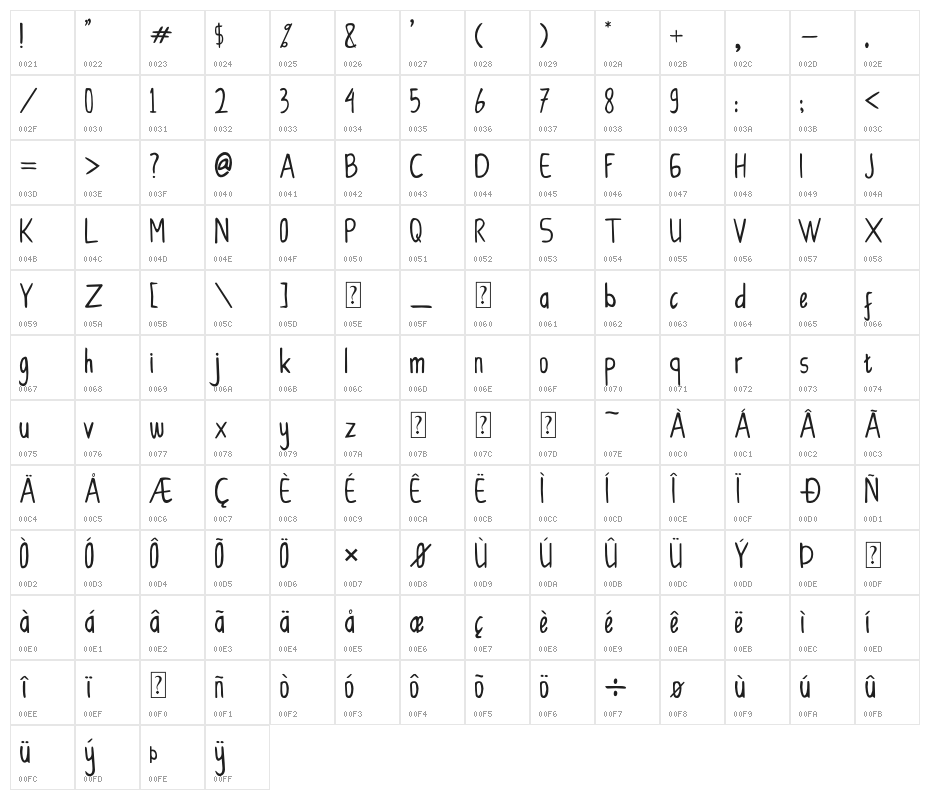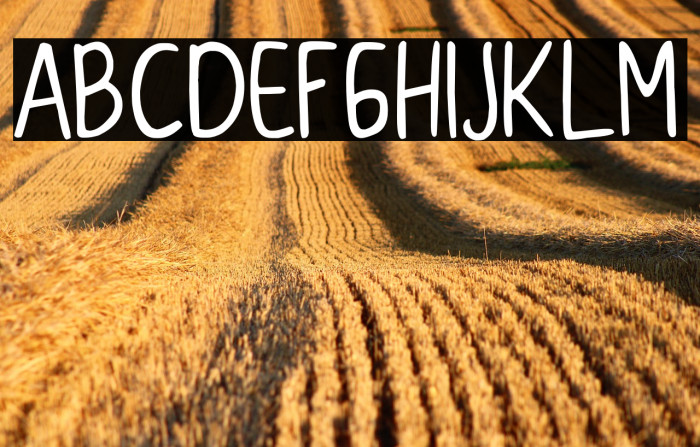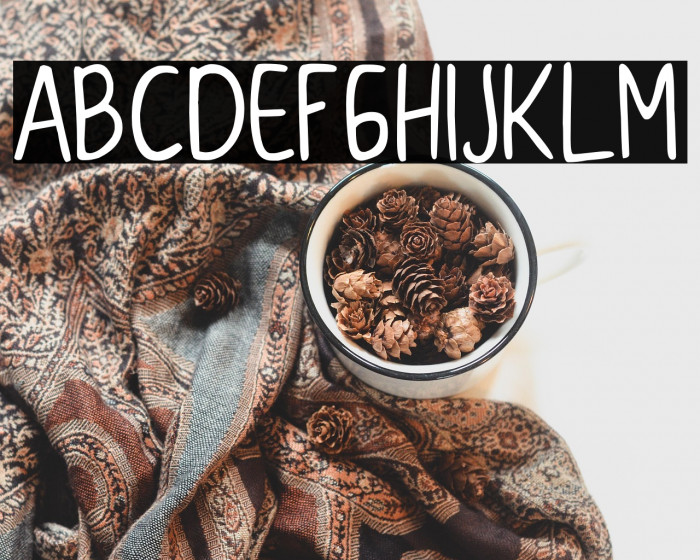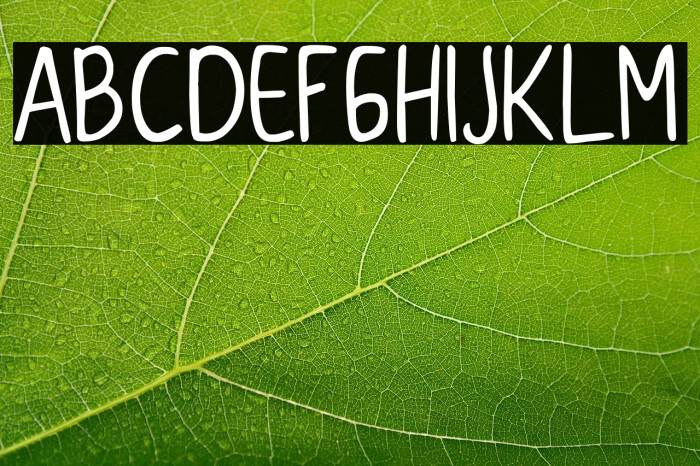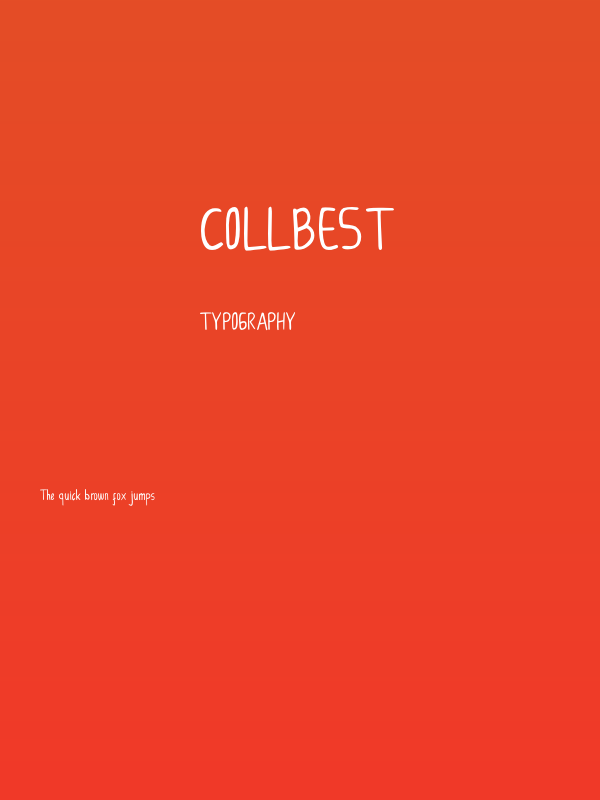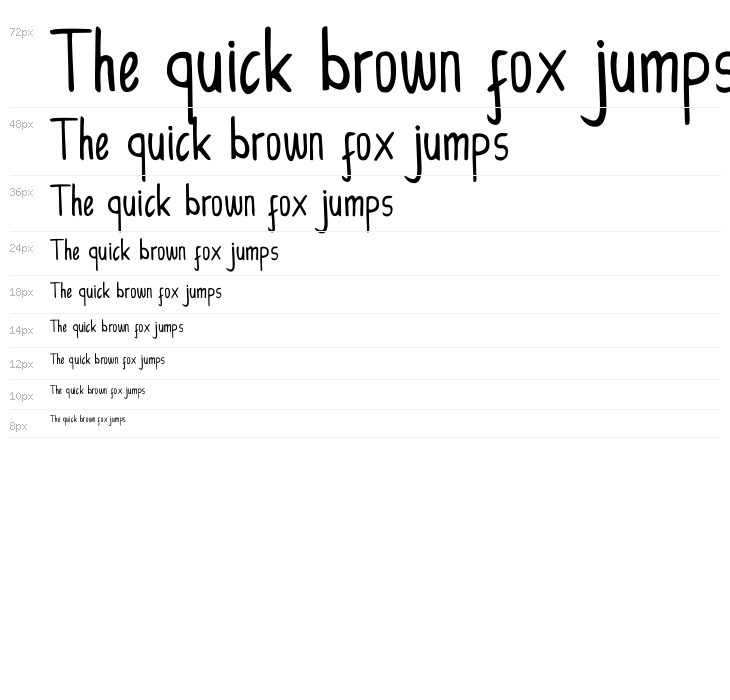
CollBesT Font
CollBesT Description
This playful and informal font features a handwritten style with a casual and friendly appearance. The letters are slightly irregular, adding a touch of whimsy and personality. The strokes are consistent in thickness, providing a uniform look across all characters. The font includes both uppercase and lowercase letters, numbers, and a variety of special characters, making it versatile for different uses. Its rounded edges and smooth curves contribute to its approachable and relaxed feel, making it suitable for projects that require a personal touch.
| Overall Style | Casual |
| Use Case | Headlines, Informal text, Creative projects |
| Proposed Projects | Ideal for children's books, greeting cards, personal blogs, and informal branding. |